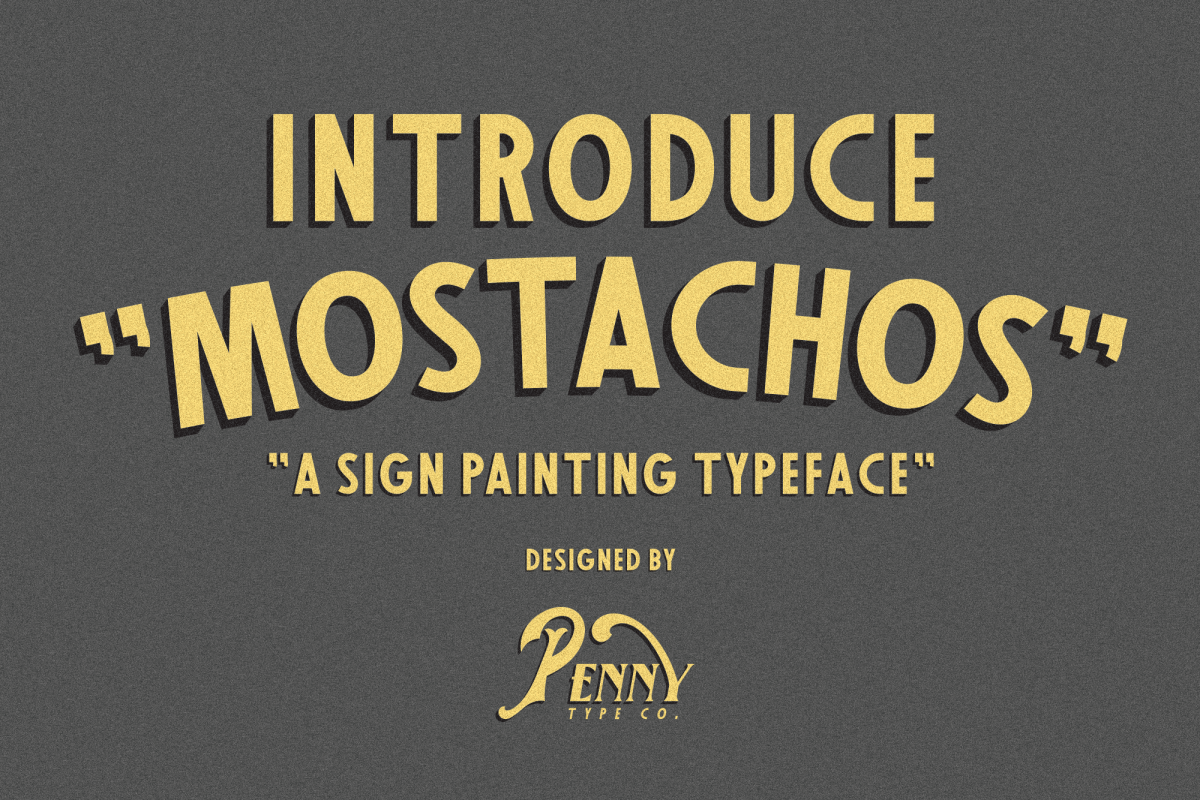
Created By Penny Type Co
Mostachos Font
Mostachos inspired by vintage sign painting, this is one of the most common typeface used in sign painting. with a shadow as the hallmark of sign painting. this typeface is very good for your vintage project like branding, labeling, poster, printing, signage, logotype, and many more.Please don't hesitate to drop me a message if you have any question.Many Thanks,